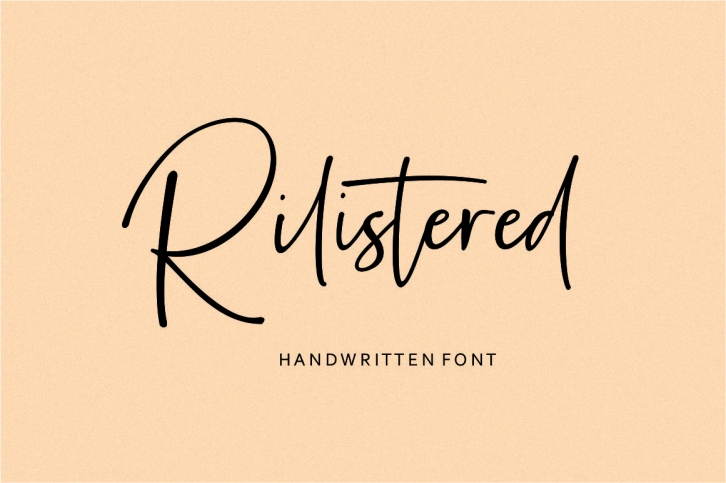
Rilistered Handwtitten is a beautiful font that was designed by fikryal. It's a great choice for designers and creatives who need such a font. It was released on May 10, 2019 and the file size is 20.41 MB. Rilistered Handwtitten may give a more youthful, expressive and casual look to your project. It is a very beautiful, refined, elegant, and high-quality font.